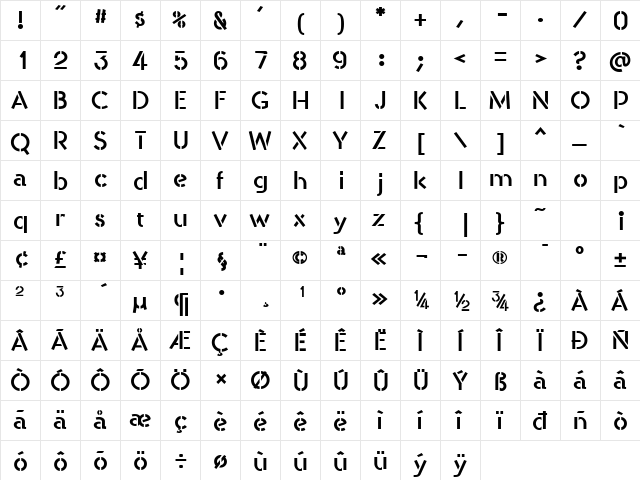
AndrewAndyStencil Bold
Design Context for AndrewAndyStencil Typeface
AndrewAndyStencil borrows the utilitarian aesthetic of stencil lettering, with its characteristic cutaways and no-frills construction lending an industrial edge. The heavy weight commands attention and anchors typographic hierarchies.
A strong choice for packaging that needs edge, warehouse aesthetics, and rough-and-ready visual identities.
Pro Tip: Use AndrewAndyStencil at large sizes on packaging, posters, or apparel where the stencil cutaways read clearly. Avoid small sizes where those gaps become visual noise.